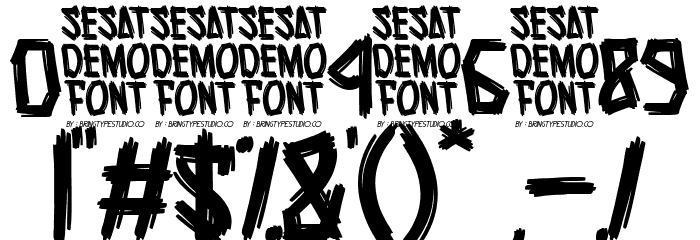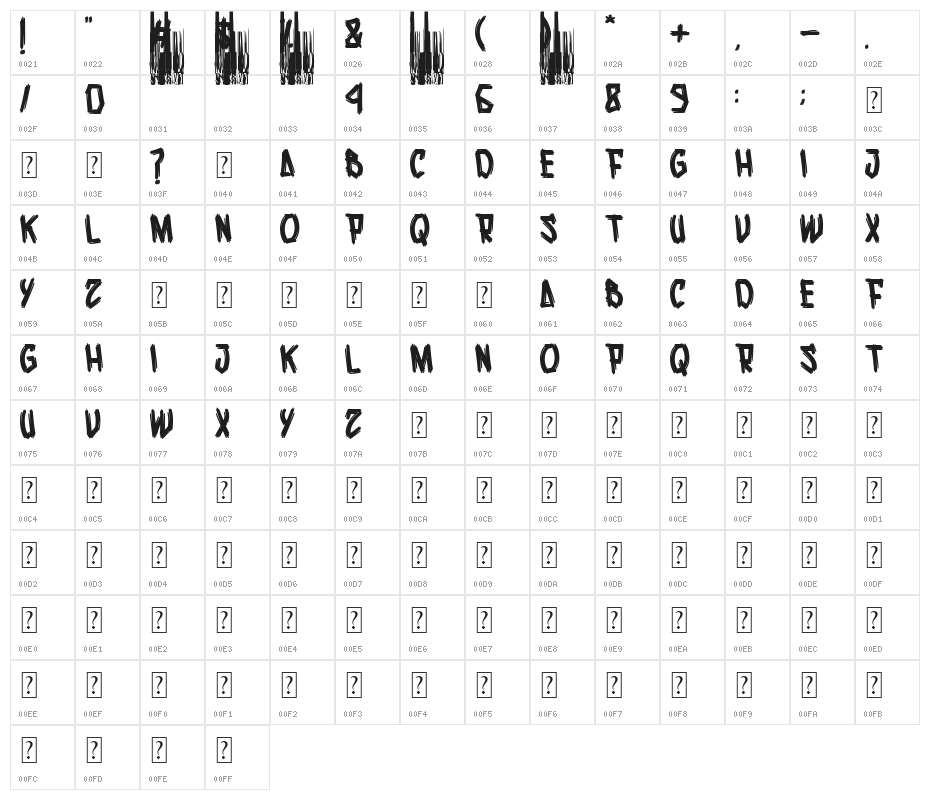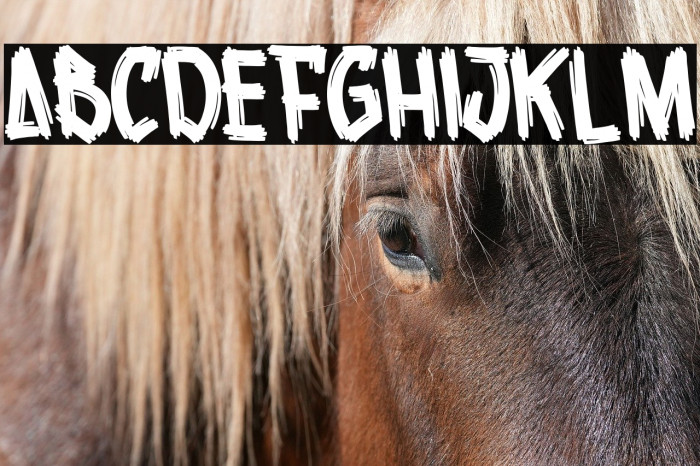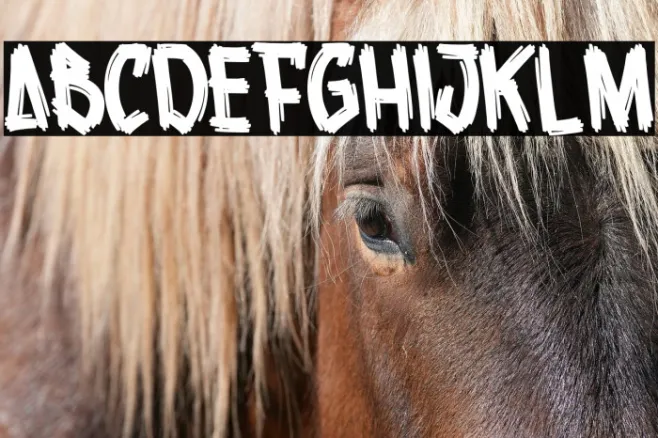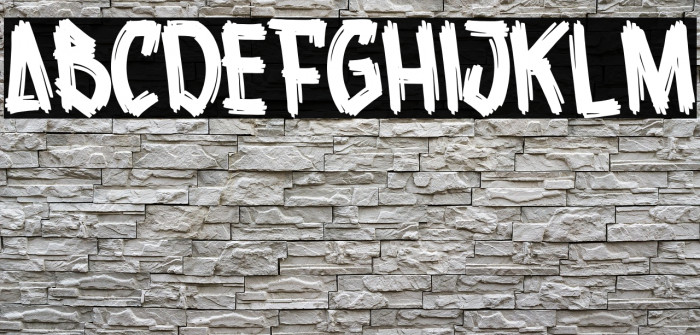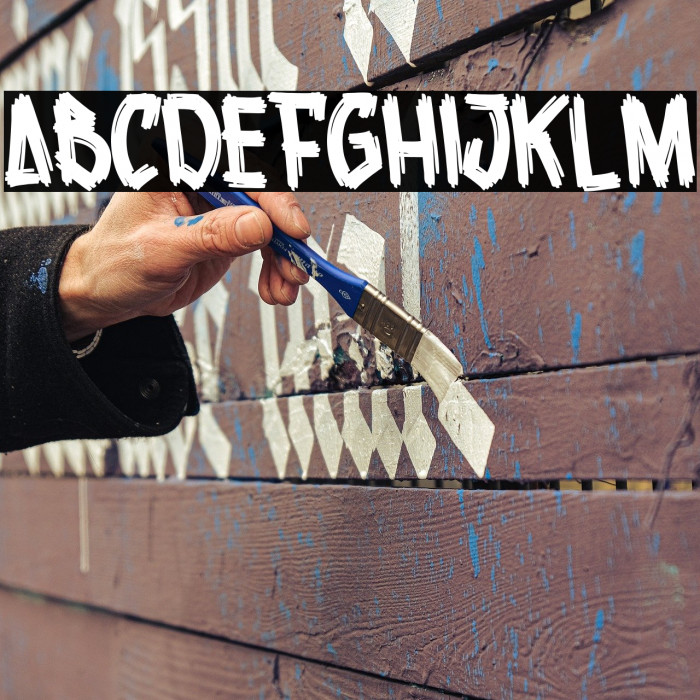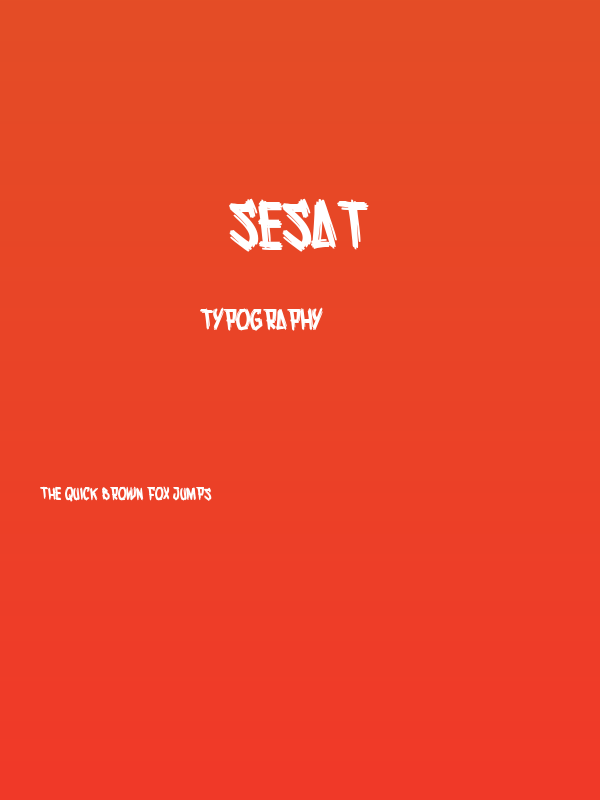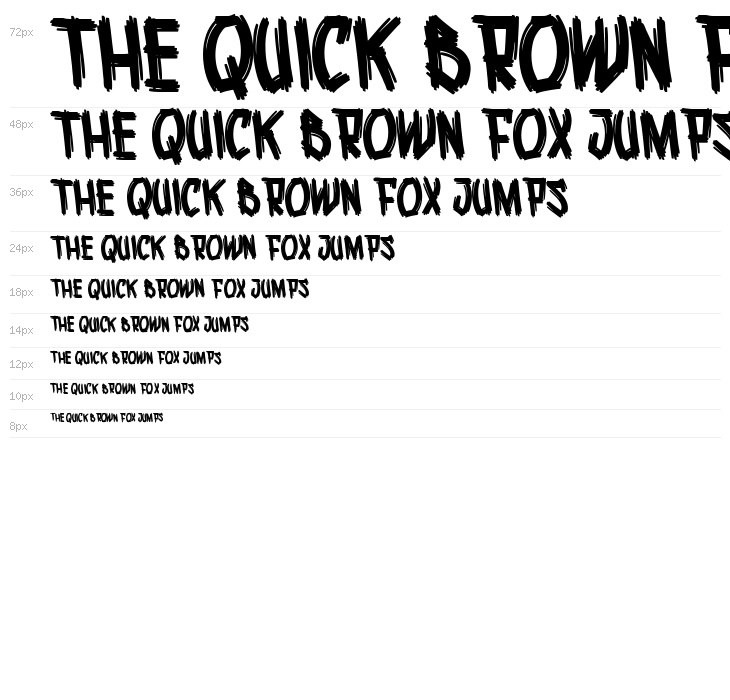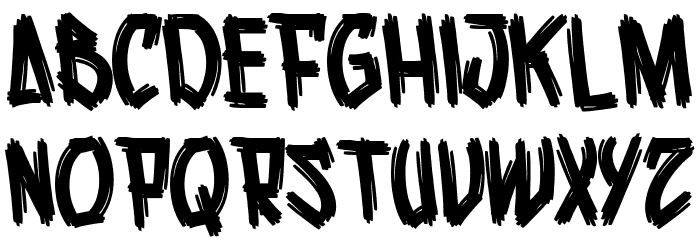
SESAT Font
SESAT Description
This font exhibits a bold, dynamic style with a hand-drawn appearance. The letters are characterized by thick, uneven strokes that give it a raw, energetic feel. The uppercase and lowercase letters maintain a consistent style, with angular edges and a slightly distorted form that adds to its unique character. The numbers and special characters follow the same aesthetic, ensuring a cohesive look across all glyphs. This font is highly decorative, making it suitable for projects that require a strong visual impact.
| Proposed Projects | Ideal for posters, album covers, graffiti art, and any project needing a bold, artistic touch. |